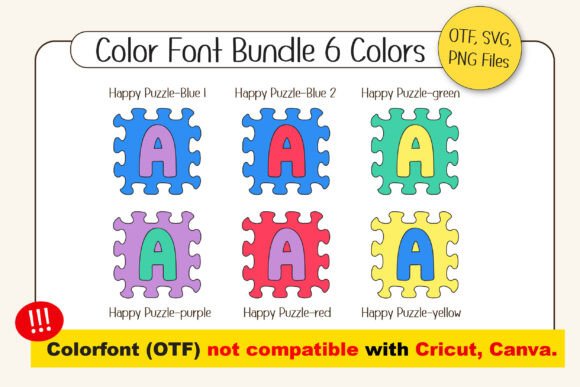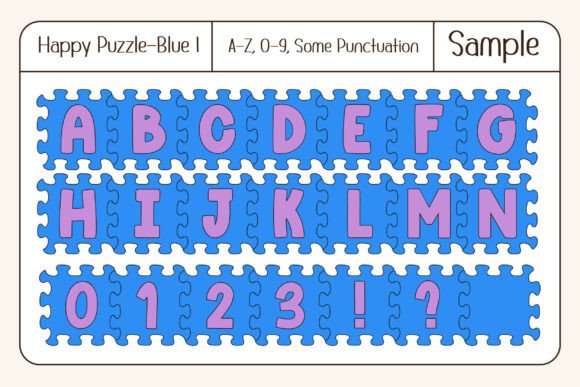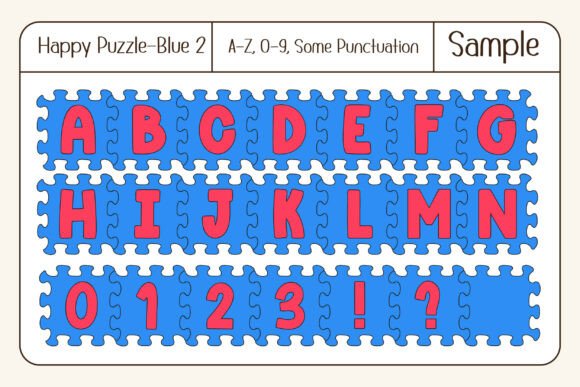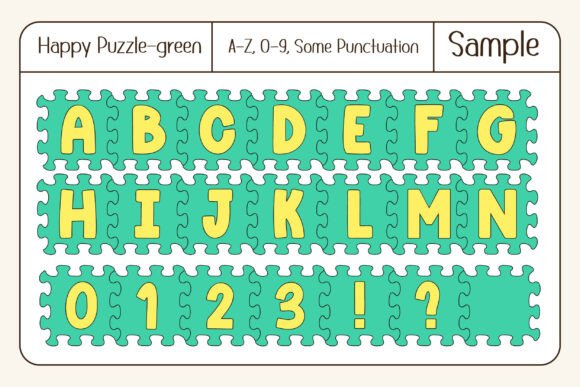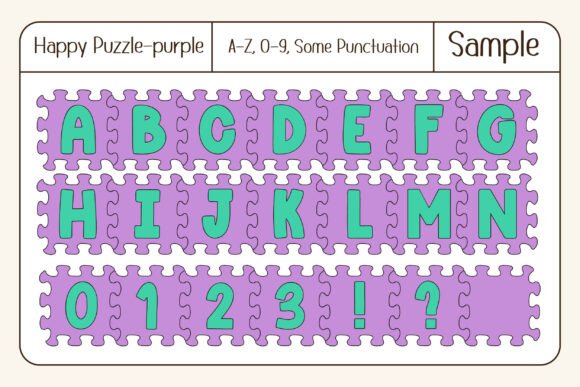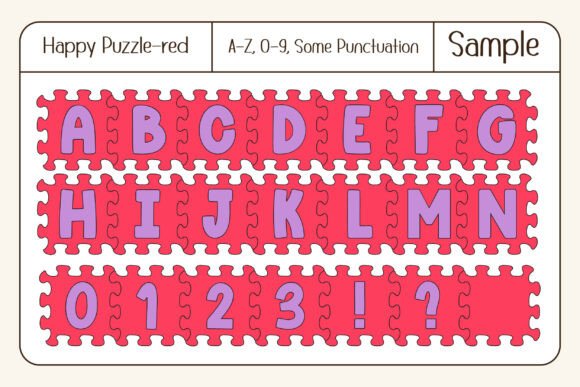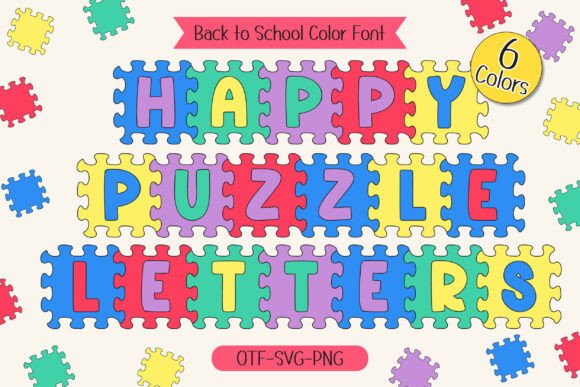
Introducing Happy Puzzle: A Fun and Educational Color Font for Students and Teachers
Are you a teacher, student, or designer looking for a creative way to make learning materials more engaging and fun? Look no further than Happy Puzzle, a brand-new color font designed specifically for educational purposes. Inspired by classic foam alphabet tiles used in early childhood learning, Happy Puzzle brings playful shapes and bright, engaging colors into a creative typographic style.
A Font that Combines Fun and Learning
Happy Puzzle is more than just a font – it’s an educational tool that can help make learning a joyful and colorful experience. The font’s playful design and bright colors are sure to capture the attention of students and make learning materials more engaging. Whether you’re a teacher creating educational resources, a student working on a project, or a designer looking for a fun and creative font, Happy Puzzle is the perfect choice.
Key Features of Happy Puzzle
- 6 Color Fonts: Happy Puzzle comes in 6 different color fonts, giving you a range of options to choose from and making it perfect for creating a variety of learning materials and designs.
- Inspired by Classic Foam Alphabet Tiles: The font’s design is inspired by classic foam alphabet tiles used in early childhood learning, making it a nostalgic and fun choice for educational materials.
- Playful Shapes and Bright Colors: Happy Puzzle features playful shapes and bright, engaging colors that are sure to capture the attention of students and make learning materials more engaging.
- Perfect for Kids’ Learning Materials: Happy Puzzle is designed specifically for educational purposes, making it perfect for creating kids’ learning materials, classroom decorations, and children’s merchandise.
Uses for Happy Puzzle
Happy Puzzle is a versatile font that can be used in a variety of ways. Here are some ideas to get you started:
- Kids’ Learning Materials: Create engaging and interactive learning materials, such as alphabet charts, number lines, and educational worksheets.
- Classroom Decorations: Use Happy Puzzle to create colorful and fun classroom decorations, such as bulletin board headers, posters, and charts.
- T-Shirt Designs: Create fun and playful t-shirt designs for kids and adults alike.
- Children’s Merch: Use Happy Puzzle to create colorful and engaging children’s merchandise, such as stickers, coloring books, and activity sheets.
- DIY Crafts: Happy Puzzle is perfect for DIY craft projects, such as making personalized cards, gift tags, and other paper crafts.
Why Choose Happy Puzzle?
So why choose Happy Puzzle over other fonts? Here are just a few reasons:
- Unique and Playful Design: Happy Puzzle features a unique and playful design that’s sure to capture the attention of students and make learning materials more engaging.
- Educational Value: Happy Puzzle is designed specifically for educational purposes, making it a valuable tool for teachers and students.
- Versatility: Happy Puzzle can be used in a variety of ways, from creating learning materials to designing t-shirts and children’s merchandise.
Happy Puzzle is a fun and educational color font that’s perfect for students, teachers, and designers. With its playful design, bright colors, and versatility, Happy Puzzle is sure to become a favorite font for anyone looking to make learning materials more engaging and fun. Whether you’re creating kids’ learning materials, classroom decorations, t-shirt designs, children’s merchandise, or DIY crafts, Happy Puzzle is the perfect choice. So why wait? Download Happy Puzzle today and start creating!